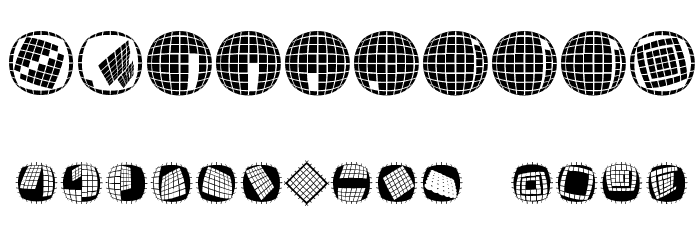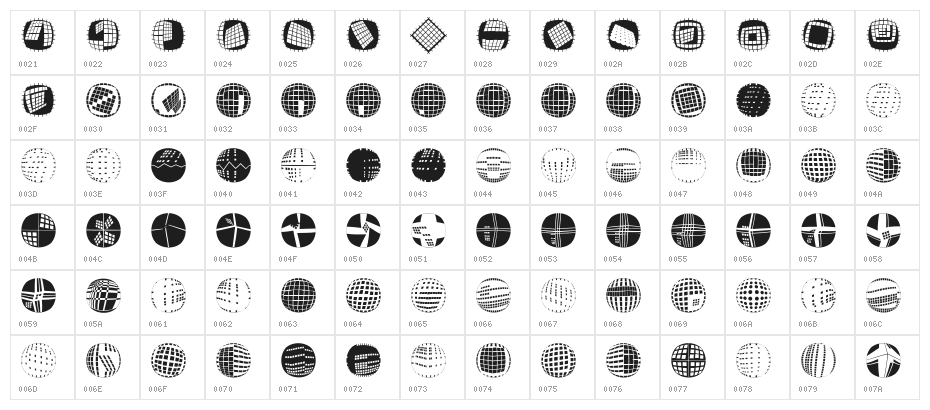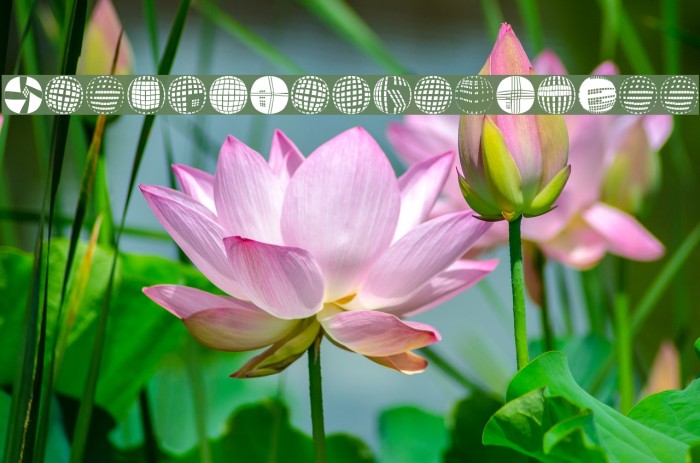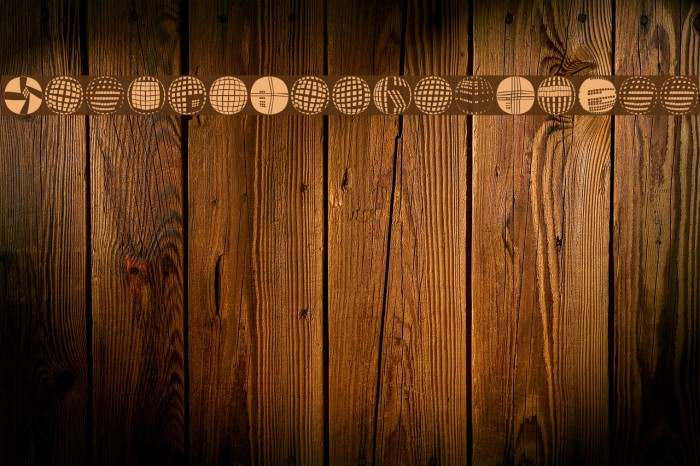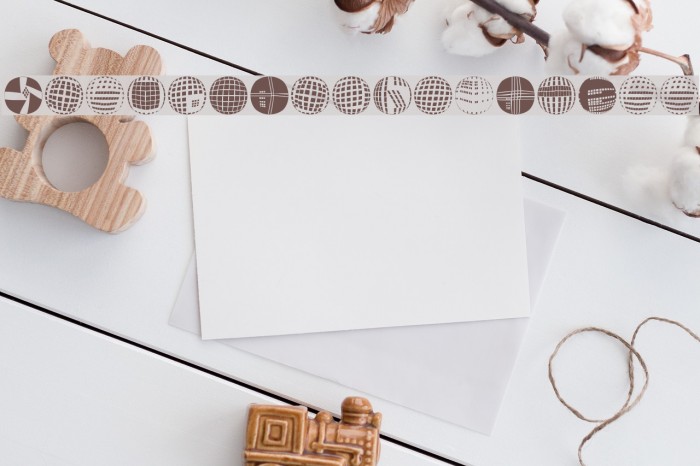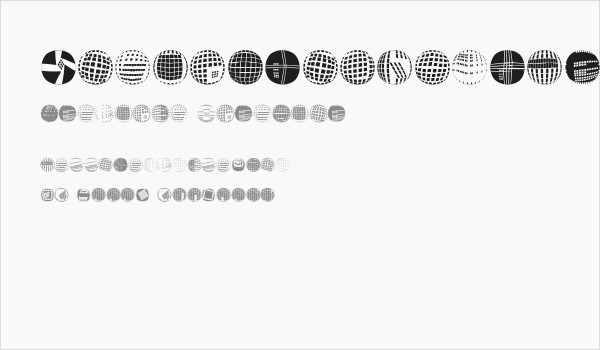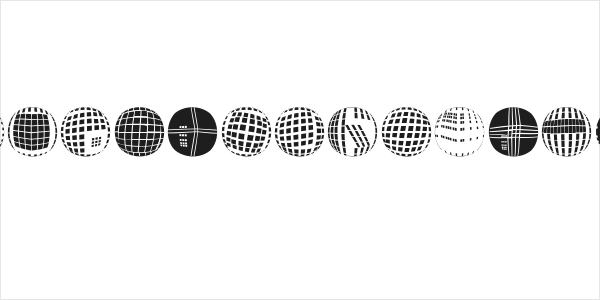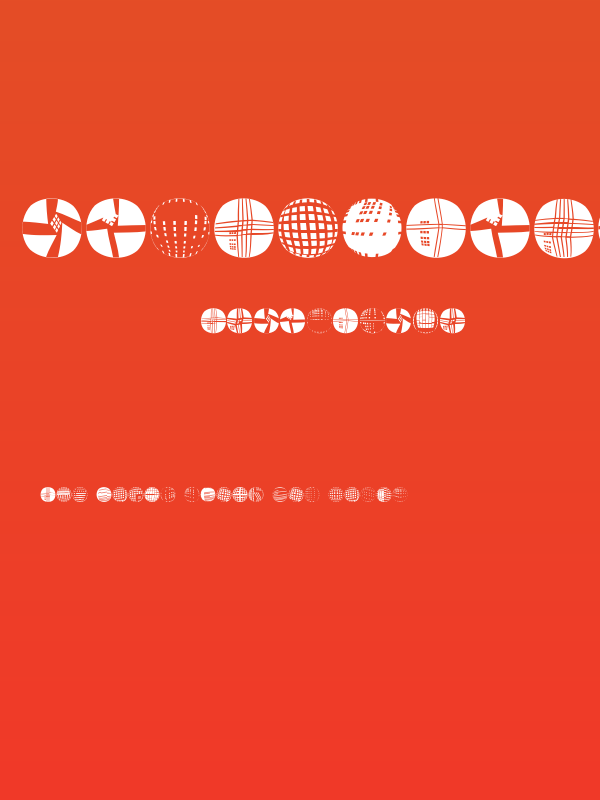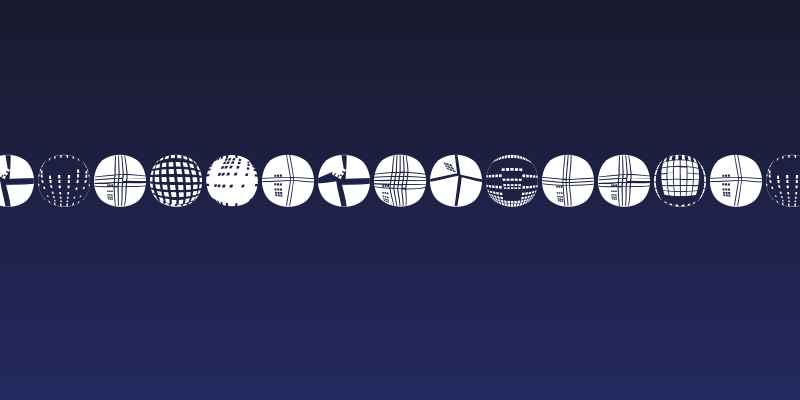
PoeticRoundsThree Font
A highly decorative and abstract font where each character is represented by a unique circular glyph filled with various geometric patterns, grids, and line arrangements, creating a visually dynamic and artistic appearance.
Overall StyleDecorative, Abstract, Modern
Use CaseLogos, Posters, Artistic headlines, Visual identity
Proposed ProjectsAlbum covers, experimental posters, art installations, branding for creative industries, visual poetry.